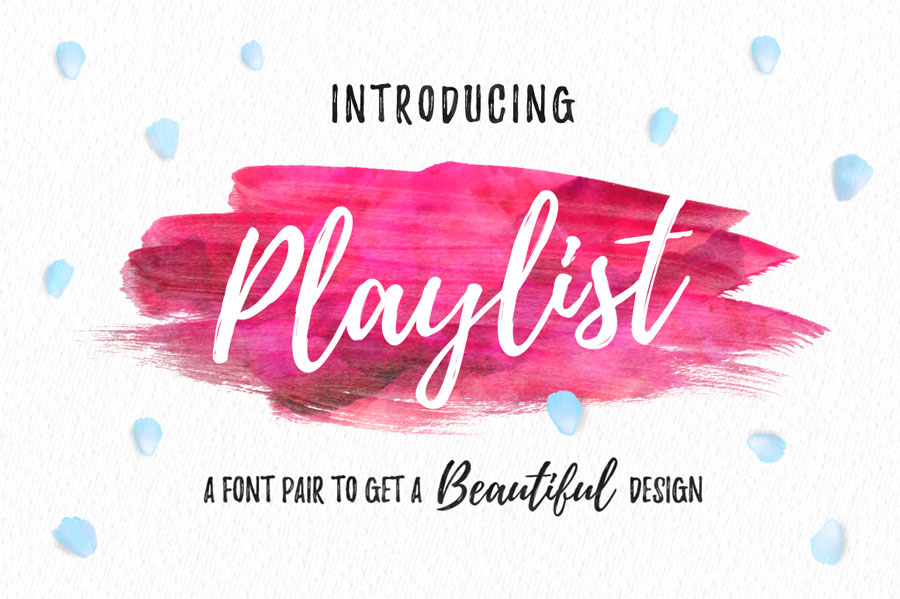
Overview
Playlist is a perfectly imperfect, hand-drawn font family with a dry-brush texture that gives designs a warm, organic feel. The family includes three complementary styles — Script, Caps, and Ornament — that can be mixed and matched to create expressive, eye-catching layouts.
Features
• Hand-drawn, dry-brush aesthetic
• Three styles: Script, Caps, and Ornament
• Works well alone or combined for layered, decorative effects
• Suitable for both casual and refined design projects
Ideal Uses
Playlist is versatile and works especially well for:
• Wedding invitations and stationery
• Greeting cards
• Illustrations and artwork
• Social-media quotes and graphics
• Posters and signage
• T-shirt and apparel design